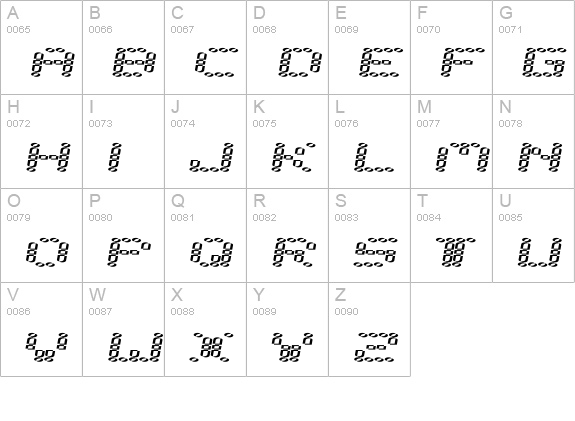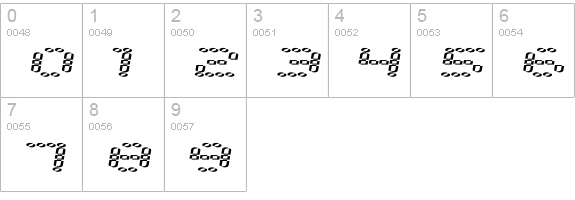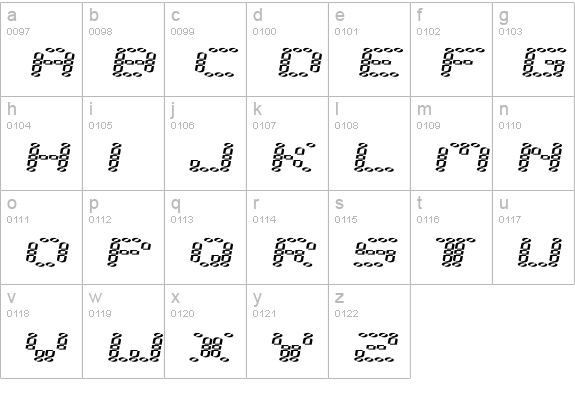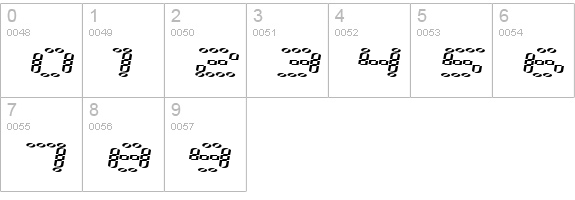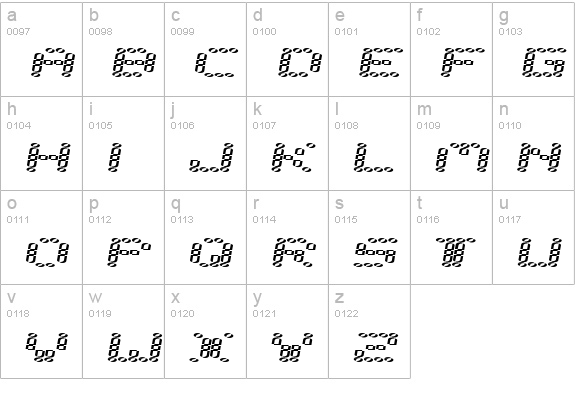
Error 2000 font is a sleek and modern typeface that is perfect for adding a touch of sophistication to your designs. With its clean lines and stylish appearance, this font is sure to make a statement. Whether you are creating a logo, designing a website, or working on a print project, Error 2000 font will elevate your work to the next level. What makes Error 2000 font even better is that it is available for free download at FontsMarket.com. This means you can easily access this high-quality font without any cost, making it a great choice for designers on a budget. Don't miss out on the opportunity to enhance your projects with the elegant Error 2000 font - download it today and take your designs to new heights.